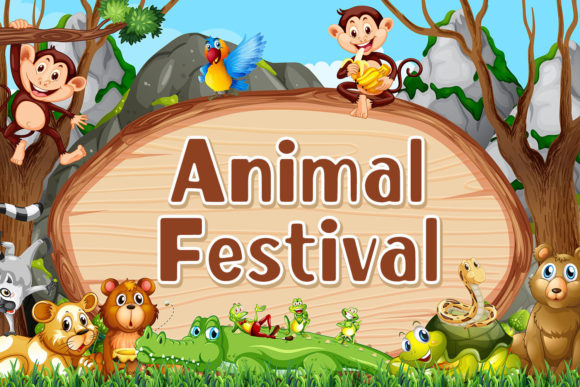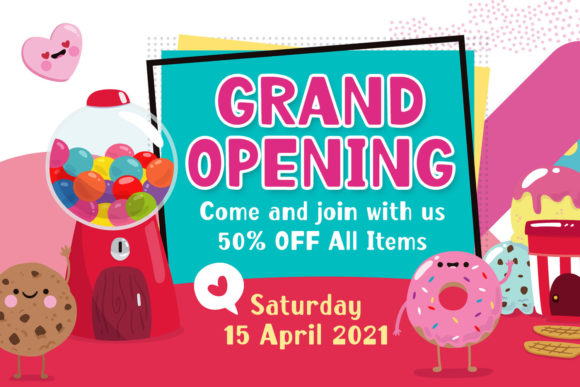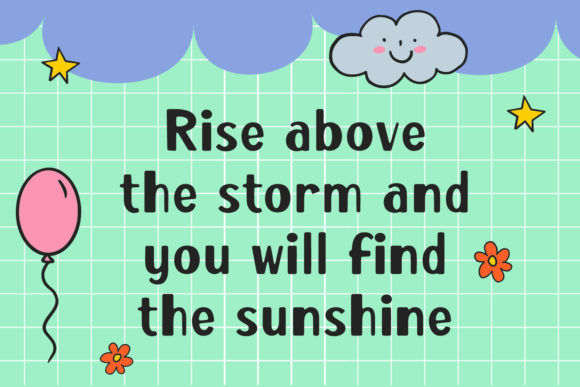
Introduction to Holiday Budapest Font
You’re in the middle of a creative project, and you need that perfect font to make it pop. The excitement builds up as you browse through your design resources, and then it hits you – the perfect addition to elevate your work. For many designers, finding that one special font is like discovering a hidden treasure. And today, we’re excited to introduce you to the Holiday Budapest Font, a cool, fun, and adaptable display font that’s sure to bring a smile to your face.
This high-quality font is more than just a pretty face; it’s a valuable asset for any designer looking to add a touch of personality to their work. With its PUA encoded features, you’ll have access to a wide range of glyphs and ligatures that will help you create truly unique and eye-catching designs.
Key Features of Holiday Budapest Font
- High-quality design resource ideal for creative projects, including posters, flyers, and brochures.
- Comes with a transparent background, allowing for seamless integration with any design.
- Unique characteristics include a modern, elegant aesthetic and a wide range of customizable options.
Honest Review: Holiday Budapest Font
I recently came across the Holiday Budapest Font, and I must say it’s been a game-changer for my creative project. This font is a great addition to any design resource, offering a unique and elegant touch to any text.
- ✨ What works well: The font’s high-quality design and transparent background make it perfect for creating beautiful and visually appealing graphics.
- ✨ What works well: The font’s versatility allows it to be used for a wide range of creative projects, from branding to editorial design.
However, I did encounter a few limitations. The font may not be suitable for all types of text, particularly those with small font sizes or complex layouts. Additionally, the font’s unique design may not appeal to all designers.
- ⚠️ Limitations: The font may not be suitable for small font sizes or complex layouts.
- ⚠️ Limitations: The font’s unique design may not appeal to all designers.
Overall, I’m thoroughly impressed with the Holiday Budapest Font. Its high-quality design, transparent background, and free download make it a valuable addition to any design resource. While it may have some limitations, I highly recommend it for designers looking to add a touch of elegance to their creative projects.
Use the Holiday Budapest Font for creative projects that require a touch of elegance and sophistication. Experiment with different font sizes and styles to achieve the desired effect. Consider pairing the font with a transparent background for a clean and modern look.
The Holiday Budapest Font is ideal for travel and tourism-related projects, such as brochure designs, website headers, and social media graphics. It’s also suitable for wedding invitations, event flyers, and other creative projects that require a high-quality, free download font.
Q: Does the Holiday Budapest Font have a transparent background?
Yes, the Holiday Budapest Font features a transparent background, making it ideal for use on images and designs with complex backgrounds. This allows for a seamless integration of the font with your design elements, adding a professional touch to your creative project.